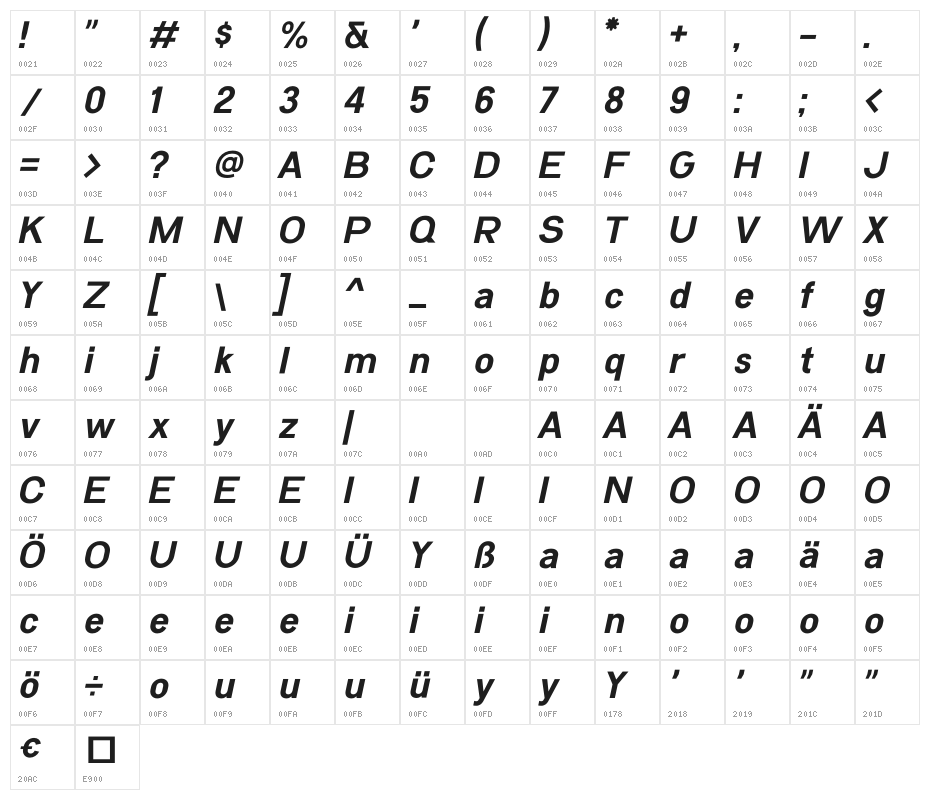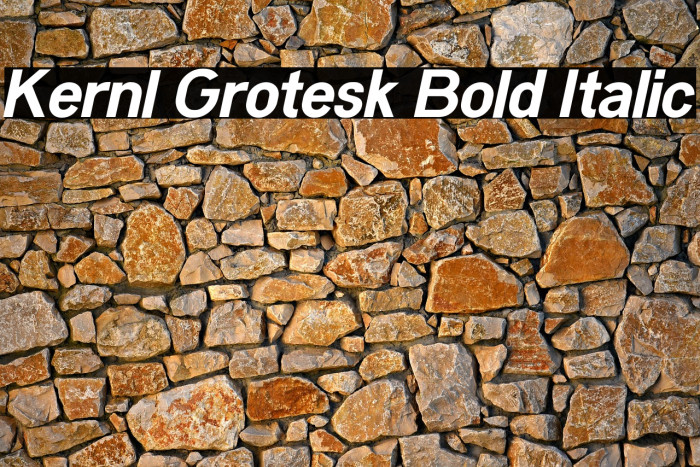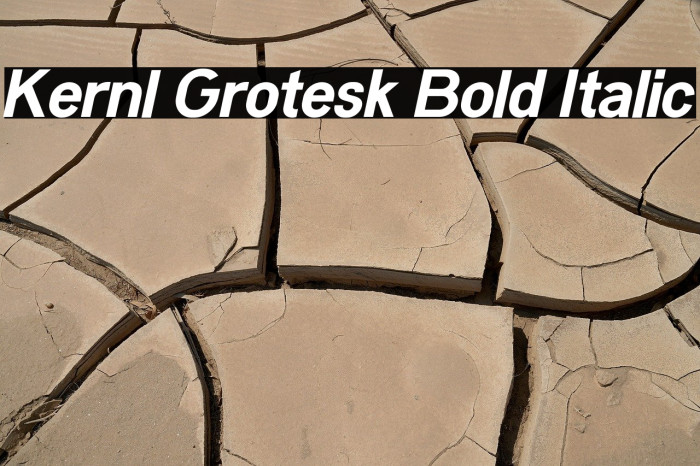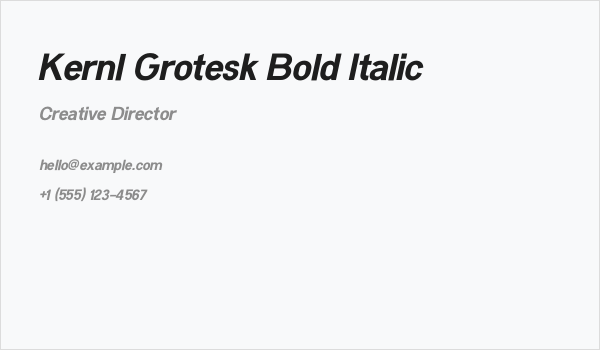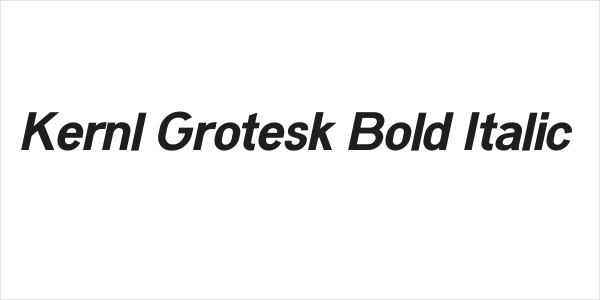
Kernl Grotesk Bold Italic Font
Kernl Grotesk Bold Italic Description
This font exhibits a bold and italicized style, characterized by its strong, assertive presence. The letters are slightly slanted, giving a dynamic and forward-moving appearance. The strokes are thick and consistent, providing a robust and confident look. The uppercase and lowercase letters maintain a uniform width, ensuring readability and balance. The numerals are clear and bold, matching the overall aesthetic of the font. Special characters are well-defined and integrate seamlessly with the alphabetic characters. This font is suitable for making impactful statements and is ideal for use in contexts where attention is paramount.